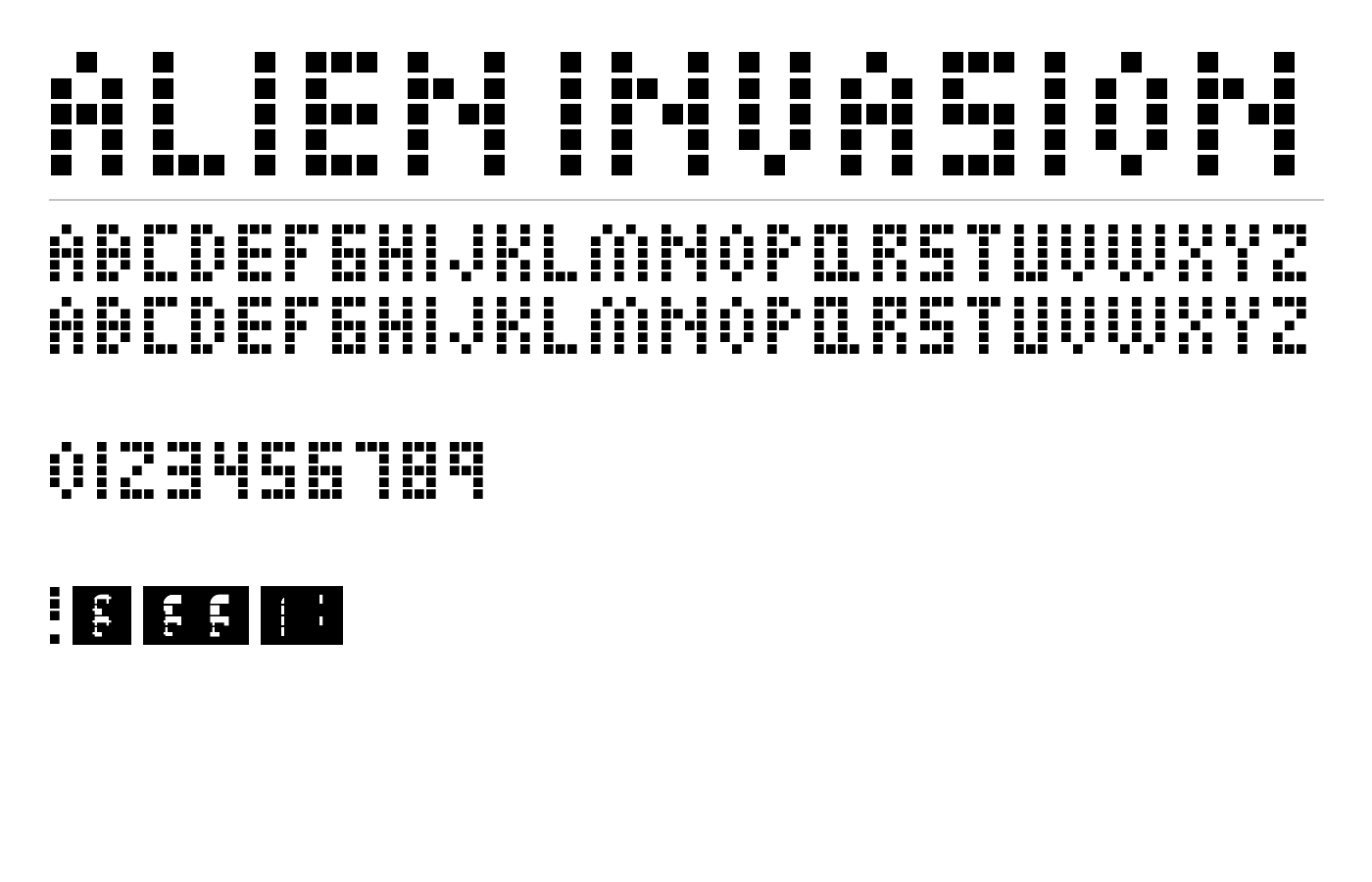
Alien Invasion Font is a distinctive pixel-style sans serif typeface that evokes a retro, digital aesthetic reminiscent of classic arcade games and early computer graphics. Its blocky, square-shaped characters with consistent weight and monospaced feel create a futuristic yet nostalgic vibe, making it ideal for tech, gaming, and sci-fi themed projects. This font works best for headlines, logos, and digital interfaces where a bold, eye-catching pixelated style is desired.
Alien Invasion Font
About Alien Invasion Font